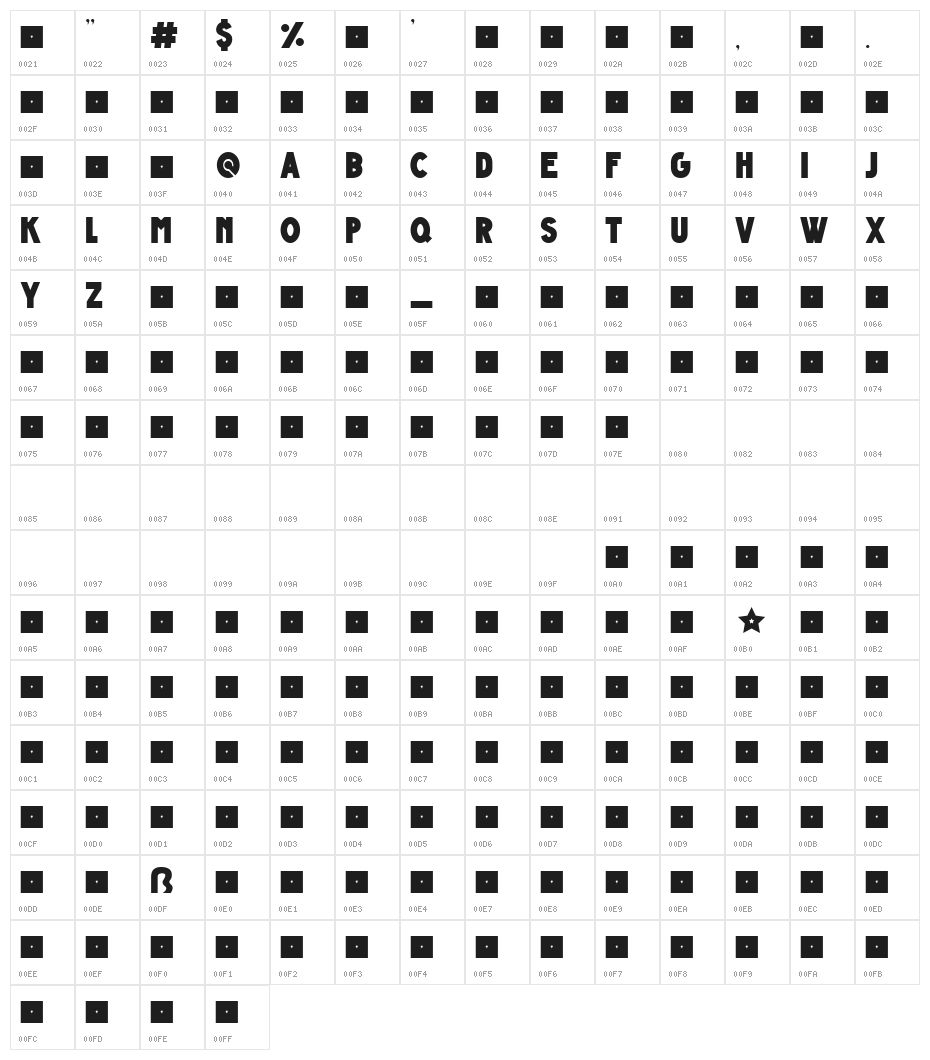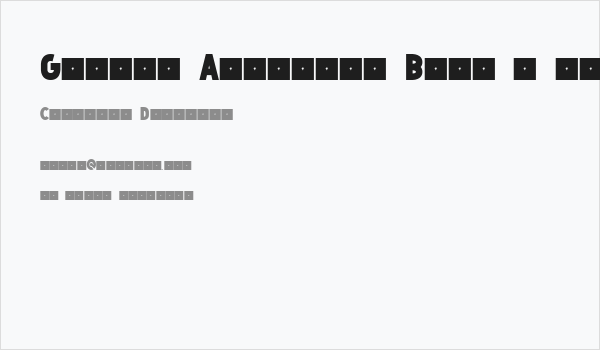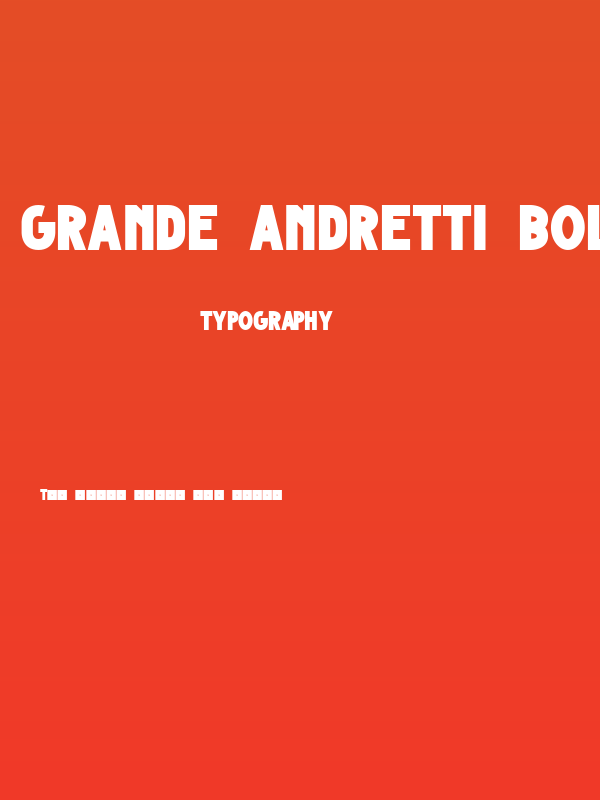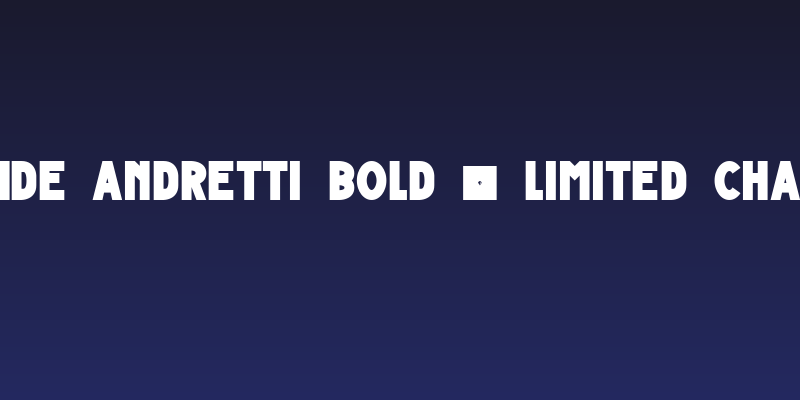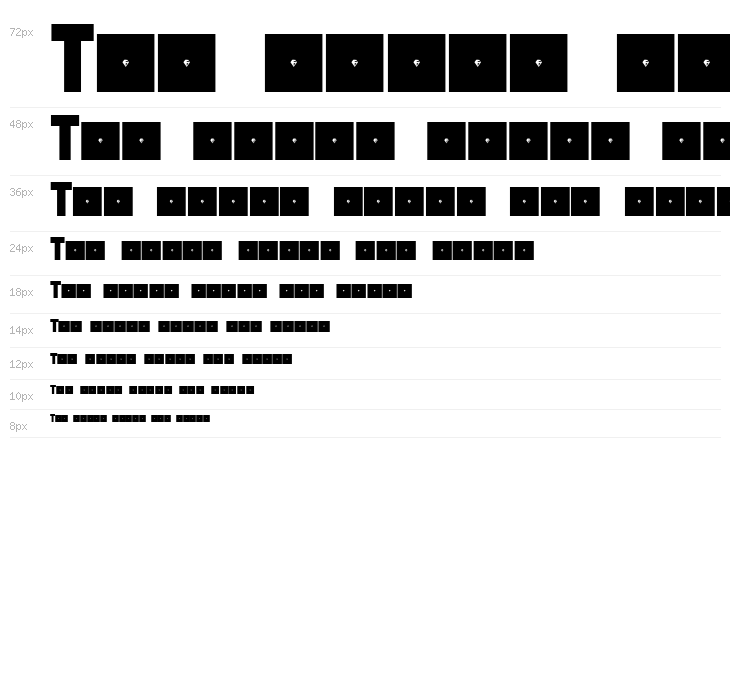
Grande Andretti Bold - limited charset Font
Grande Andretti Bold - limited charset Description
This font features bold, uppercase letters with a strong and impactful presence. The characters are designed with a geometric style, showcasing clean lines and sharp angles. The bold weight of the font gives it a commanding appearance, making it ideal for attention-grabbing headlines and titles. The spacing between characters is tight, contributing to its compact and cohesive look. The font's high contrast in stroke thickness adds to its striking visual appeal, making it suitable for modern and dynamic design projects.
| Proposed Projects | Ideal for use in branding, advertising, posters, and any design project requiring a bold statement. |